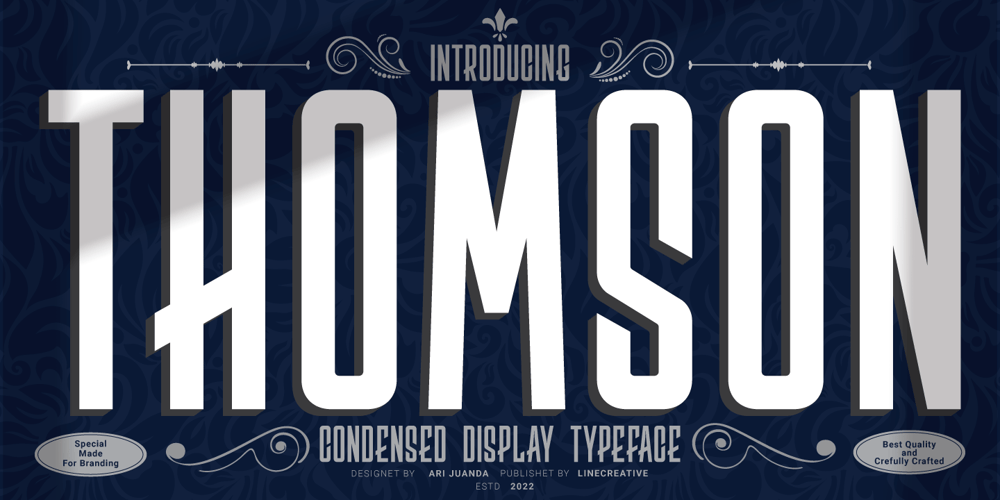
Thomson Font Family was designed by Ari Juanda and published by Linecreative. Thomson contains 1 styles and family package options. Thomson is is an Condensed font with a modern look, It’s Perfect for branding, logo design, shirts, name card, magazin layout,headers, or oven large scale artworkThomson offers you: – Upper and Lowercase characters (All Caps) – Stylistic alternates – Numbers and Punctuation – Multilingual Support (Latin Western Europe)